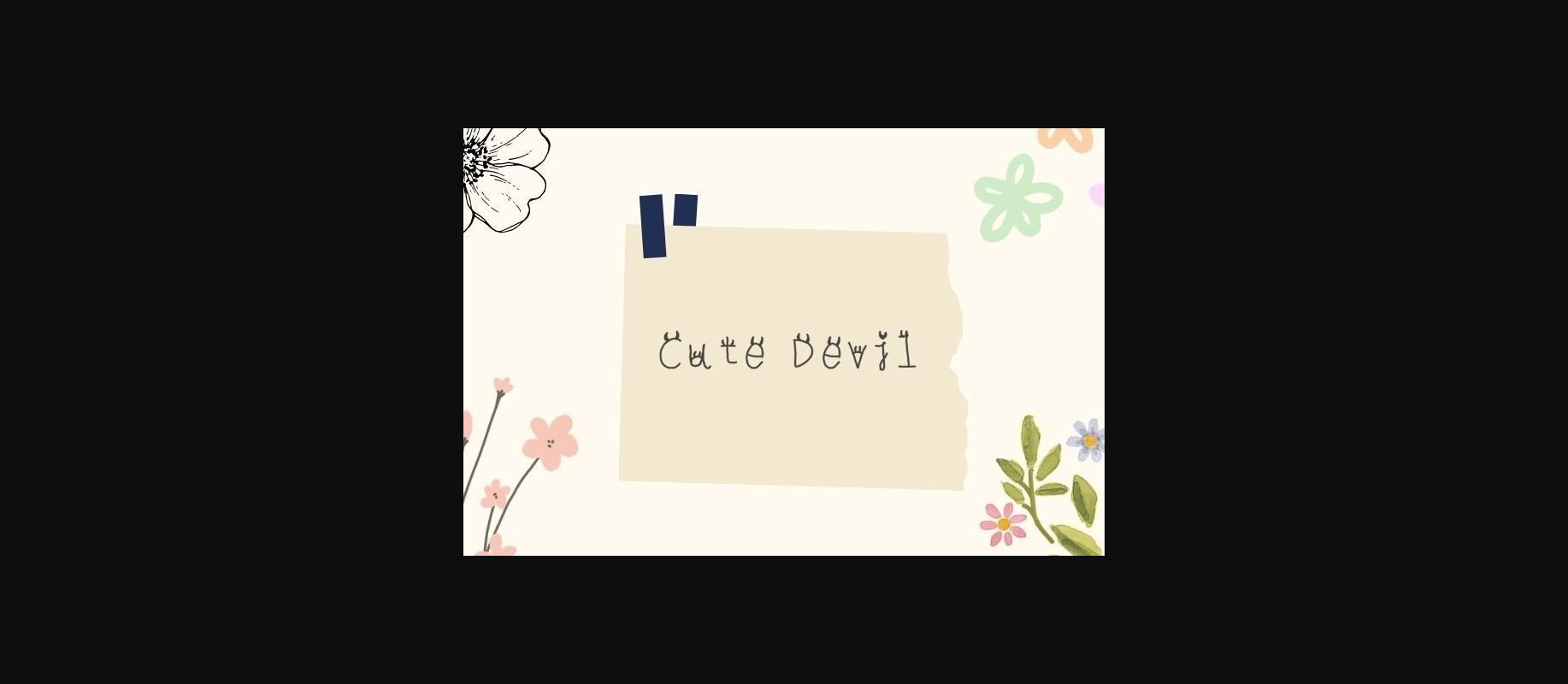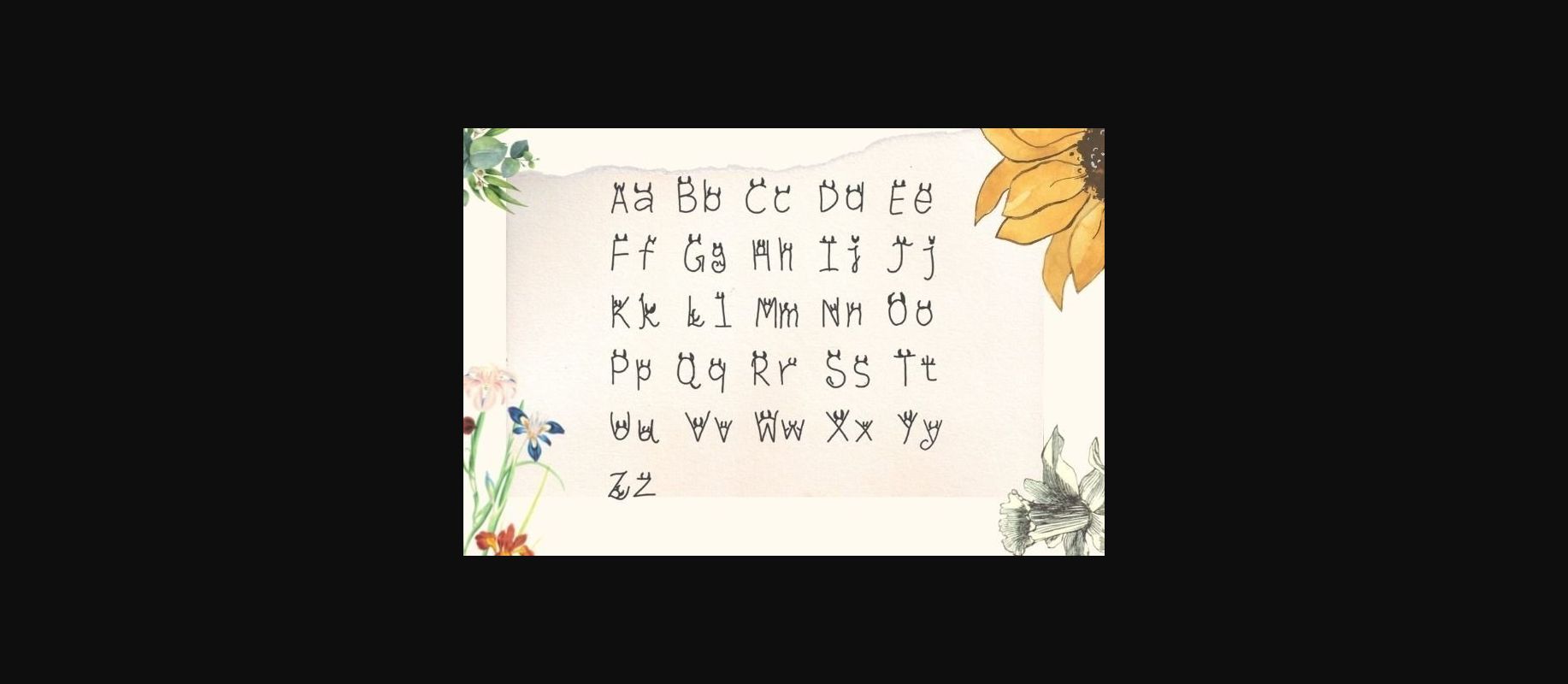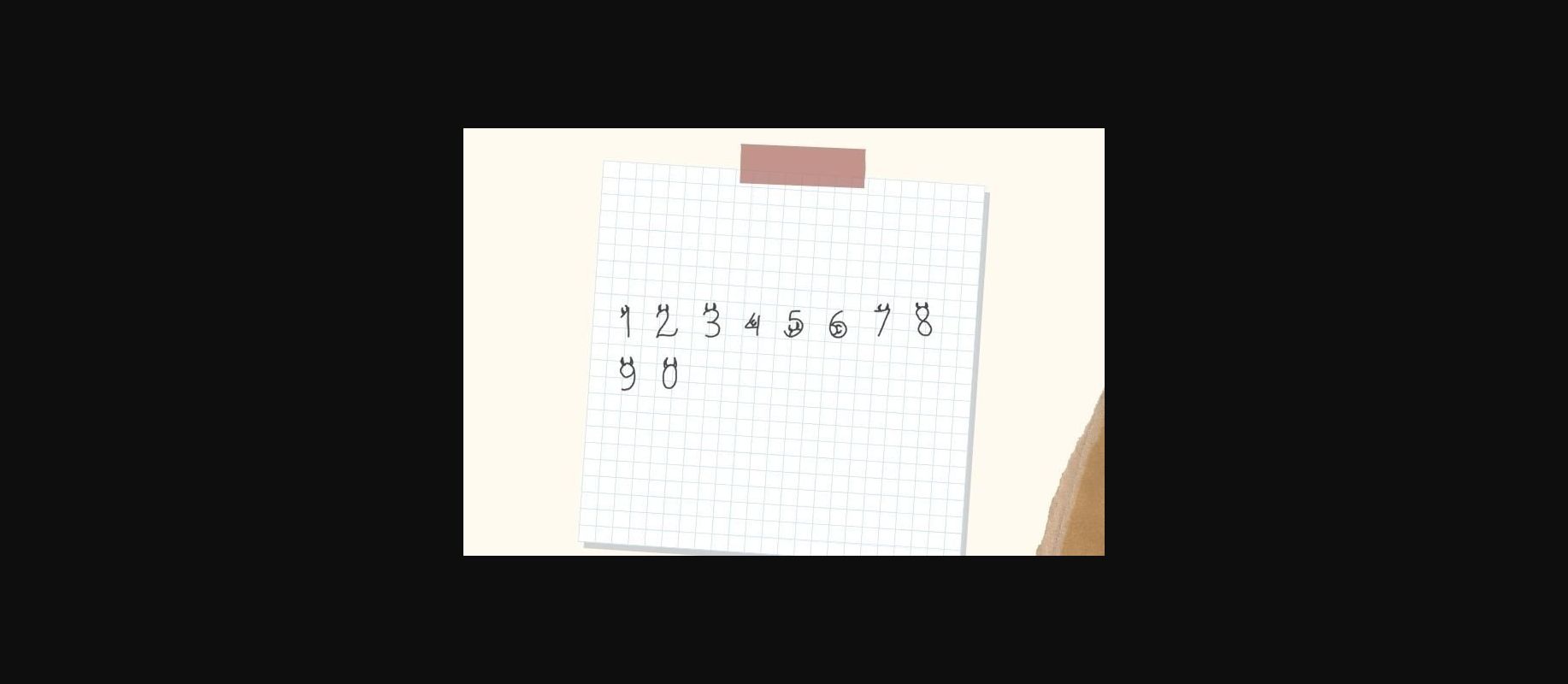
About Cute Devil Font
Awesome and cute fonts make your letter more beautiful and eye-catching. Cute Devil is a decorative font that will make your design awesome. These fonts are very stylish and cute.
Make your heading more stylish by using this beautiful and cute font!